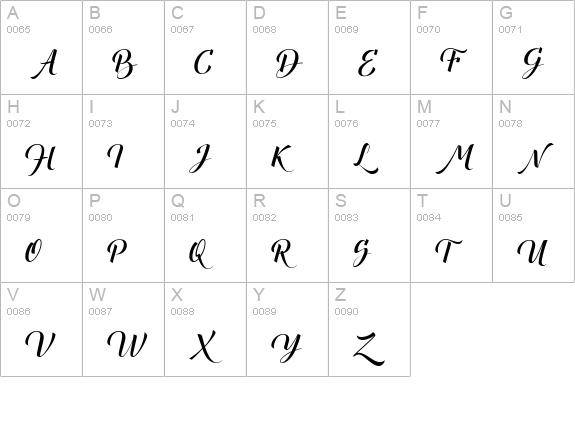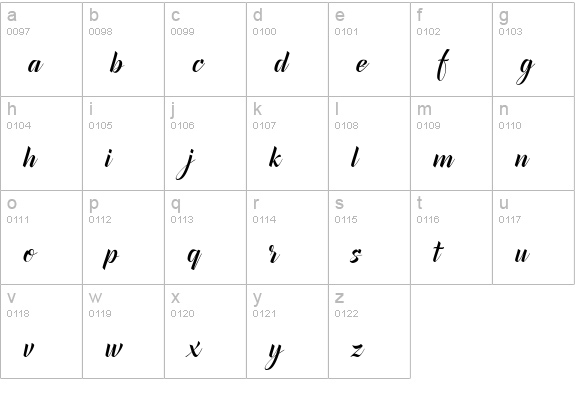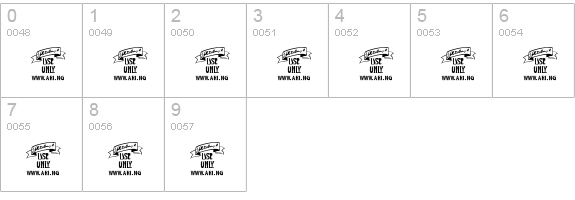
Canela Bark Bold Personal Use Font Details
Canela Bark Bold Personal Use is a strong, high-contrast variant in the Canela typeface family \xE2\x80\x94 well suited to headlines, attention-grabbing titles, and strong calls-to-action.
Canela Bark Bold Personal Use font is a stunning and versatile typeface that will add a touch of elegance and sophistication to any project. With its bold and powerful design, this font is perfect for creating eye-catching headlines, titles, and logos. The Canela Bark Bold Personal Use font features a unique blend of sharp edges and smooth curves, creating a harmonious balance between modernity and tradition. Its bold strokes command attention and make a bold statement, while its intricate details add depth and character. This font is not only visually appealing but also highly functional. It is easy to read even at smaller sizes, making it suitable for a wide range of applications, including print and digital media. One of the best things about Canela Bark Bold Personal Use font is that it is free. Yes, you read that right – this exceptional font is freely available to download at FontsMarket.com. Now you can enhance your designs with this premium-quality font without breaking the bank. Whether you are a professional designer or a hobbyist, Canela Bark Bold Personal Use font is a must-have in your font library. Its versatility, elegance, and the fact that it is free make it an irresistible choice for any creative project. So why wait? Download Canela Bark Bold Personal Use font today and let your designs come to life with its bold and captivating style.